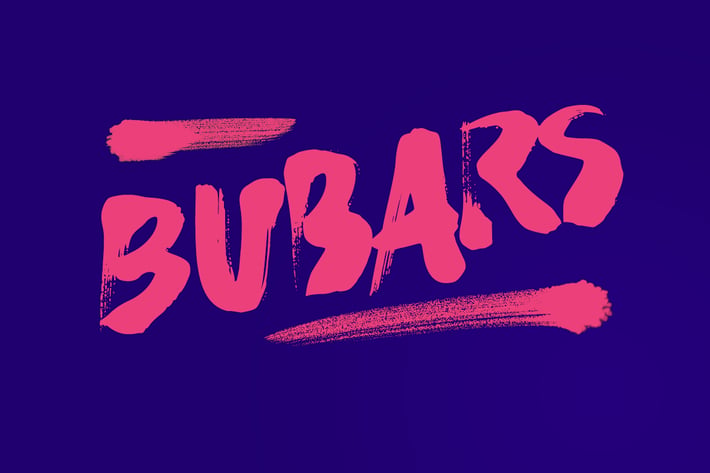
bubarz brush font
BUBARZ Brush font
- dry brush effects
- light and bold line
- extra underline and swash INCLUDED
- casual feel, suitable for headline, poster, and urban events